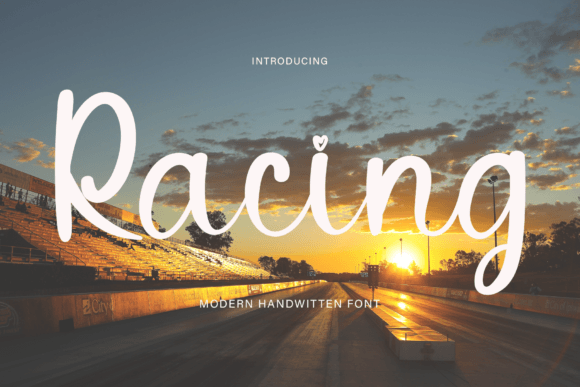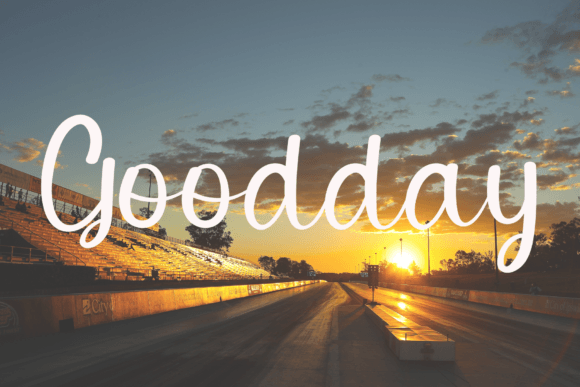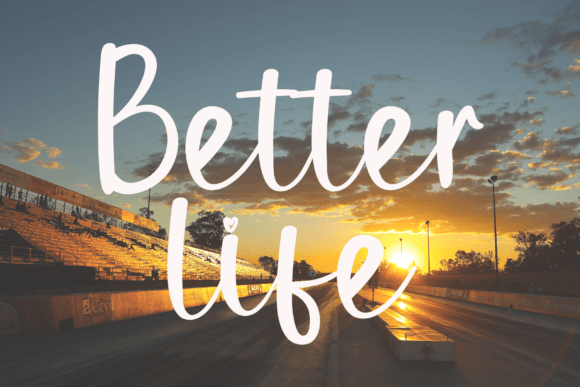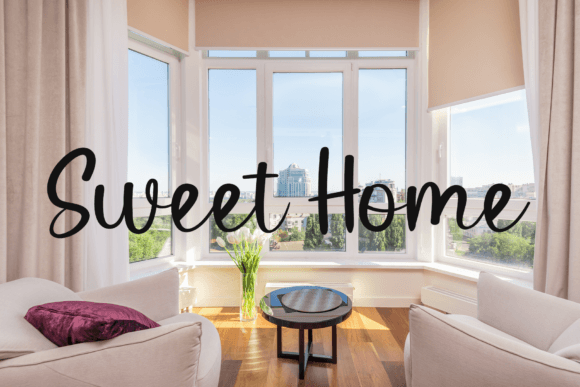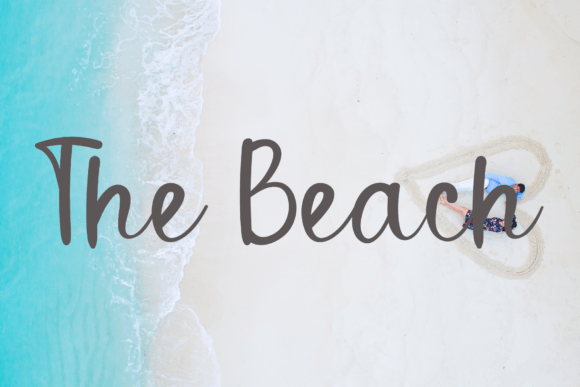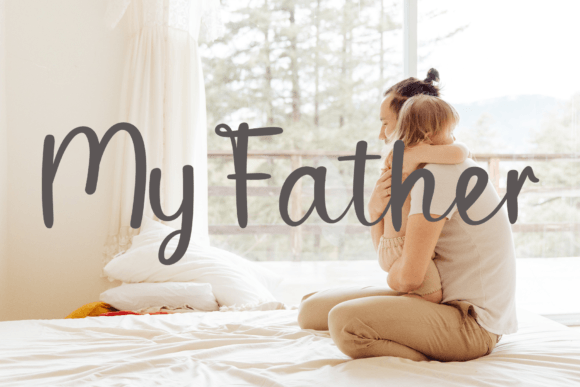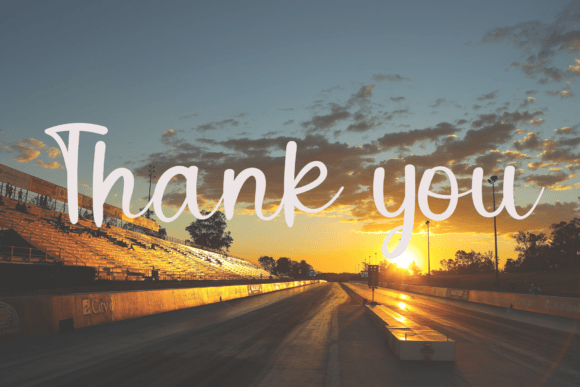
Racing Font
Racing Font: Elegant Script for Sophisticated Designs
“Racing” is a romantic and sweet calligraphy script font that adds an elegant and luxurious touch to your creative designs. Its graceful characters dance along the baseline, exuding beauty and sophistication.
Key Features of Racing Font
• Romantic Style: Racing brings a sweet and elegant feel to designs.
• Luxurious Touch: Adds sophistication and refinement to typography.
• Versatile Use: Suitable for many projects, from wedding invitations to branding materials.
Wedding Stationery
Racing’s romantic style is ideal for creating beautiful wedding invitations and special event materials.
Use Racing to design sophisticated logo designs and branding materials that convey elegance and charm.
Luxury Packaging and Labels
The font’s refined look makes it perfect for creating high-end packaging and product labels.
• Enhances overall aesthetics with its graceful script style
• Creates an inviting and captivating atmosphere in typography
• Adds a touch of luxury and sophistication to designs